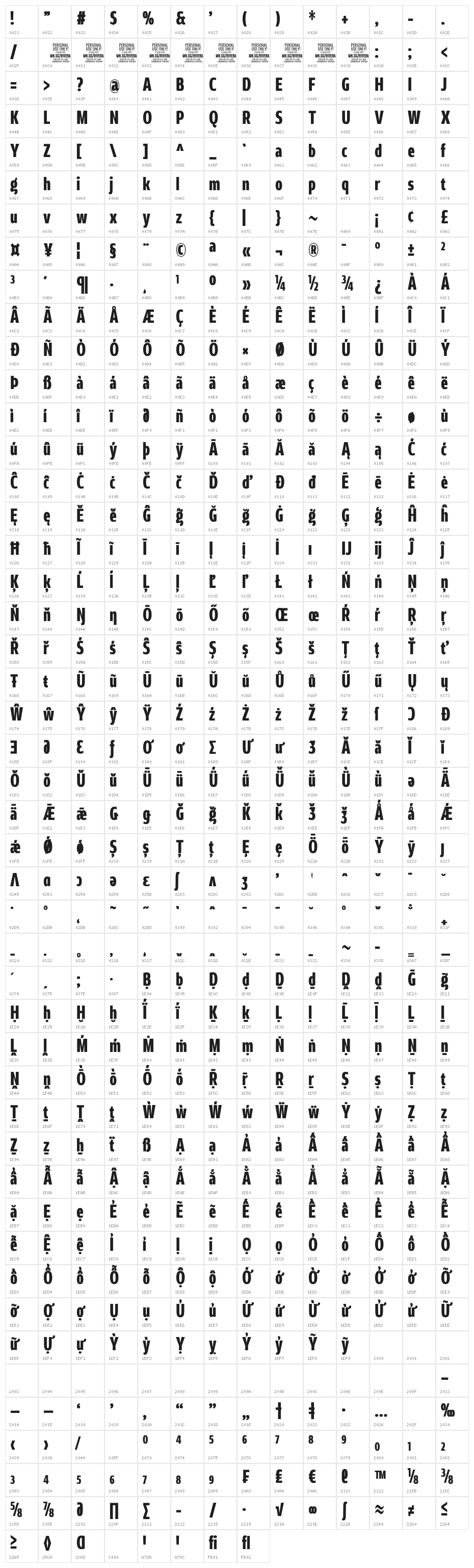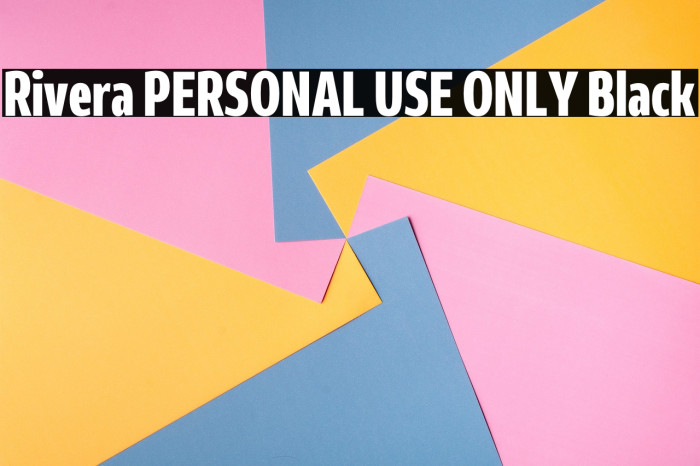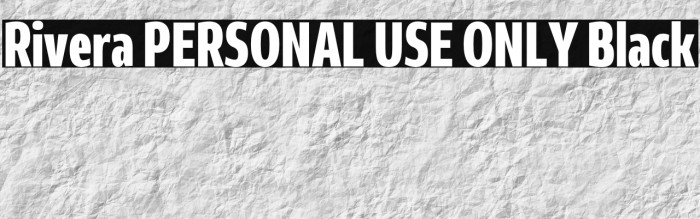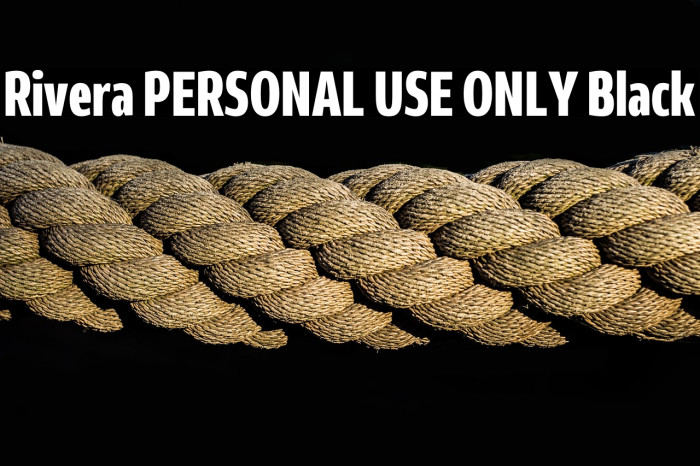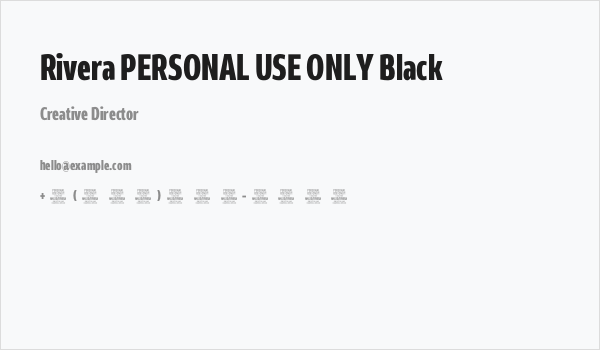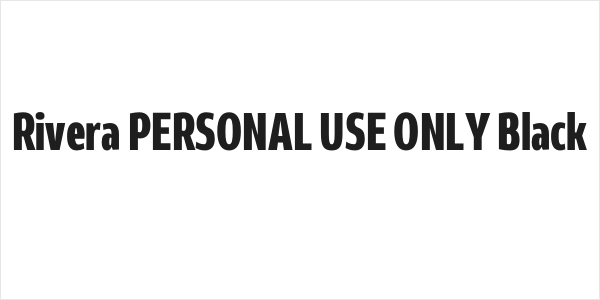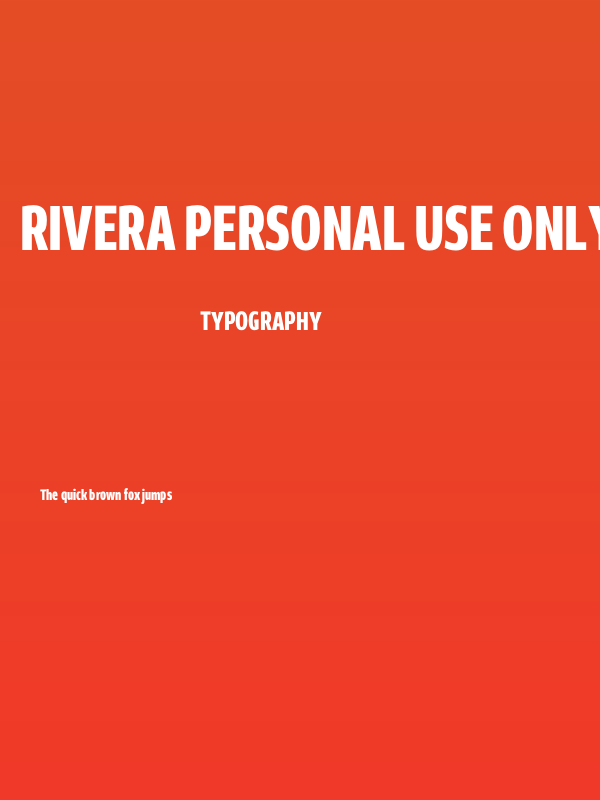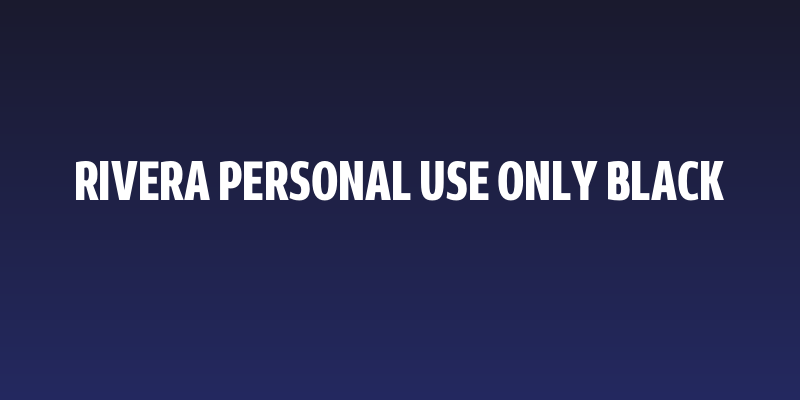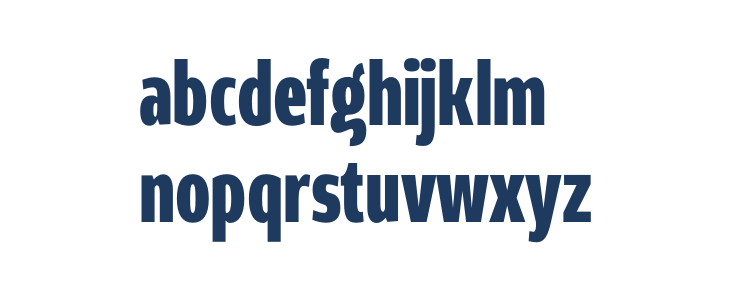
Rivera PERSONAL USE ONLY Black Font
Rivera PERSONAL USE ONLY Black Description
This font exhibits a bold and impactful style with thick strokes and a strong presence. The uppercase letters are tall and commanding, while the lowercase letters maintain a consistent and robust appearance. The characters are slightly condensed, giving a compact and powerful look. The font includes a full set of uppercase and lowercase letters, numerals, and a variety of special characters. Its boldness and clarity make it suitable for attention-grabbing designs. The uniformity in stroke width across characters contributes to a cohesive and modern aesthetic.
| Proposed Projects | Ideal for headlines, posters, branding, and any design requiring a strong visual impact. |